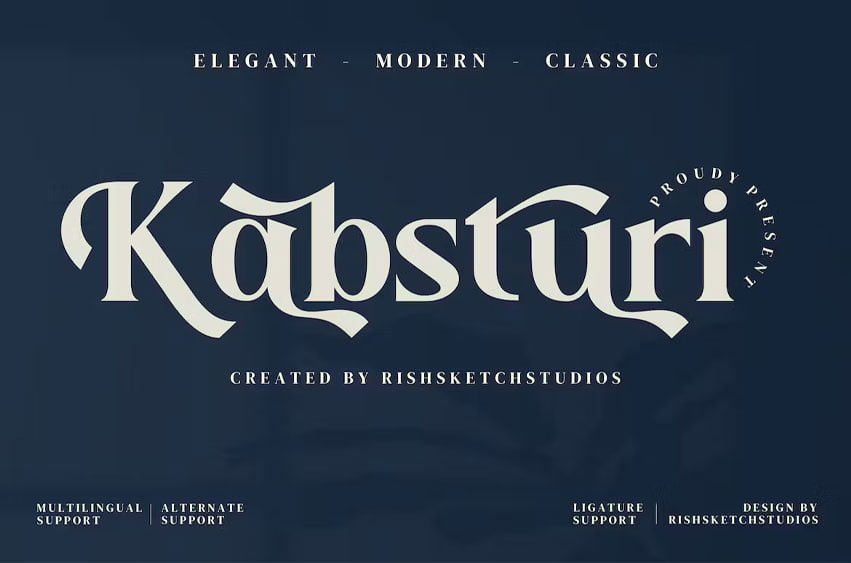
Kabsturi Font Modern Elegant Serif Font, from MAH Studios, is a premium Serif Font, suitable for any projects such as: logos, branding projects, homeware designs, product packaging, mugs, quotes, posters, shopping bags, t-shirts, book covers, name card, invitation cards, greeting cards, label, photography, watermark, special events, and all your other luxury projects that need a premium signature taste.
Ligature, Alternate & Multilingu
Fonts include support for 65 languages